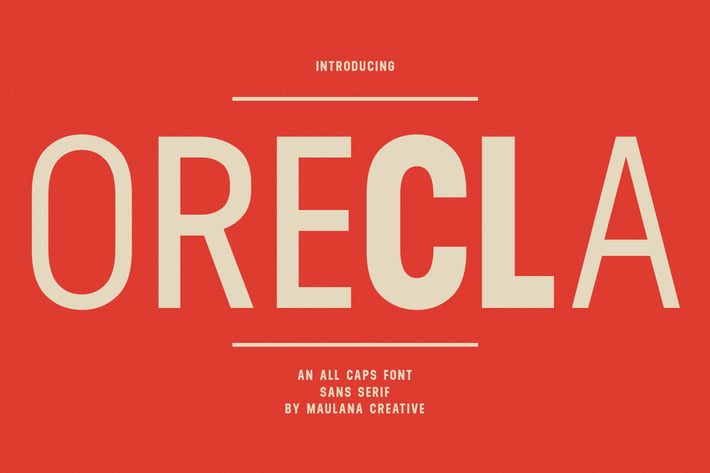
Orecla Sans Serif Display Font
Orecla is an all caps font. With 3 weights stroke, fun character. To give you an extra creative work. Orecla font support multilingual more than 100+ language. This font is good for logo design, Social media, Movie Titles, Books Titles, a short text even a long text letter and good for your secondary text font with sans or serif. Make a stunning work with Orecla font.